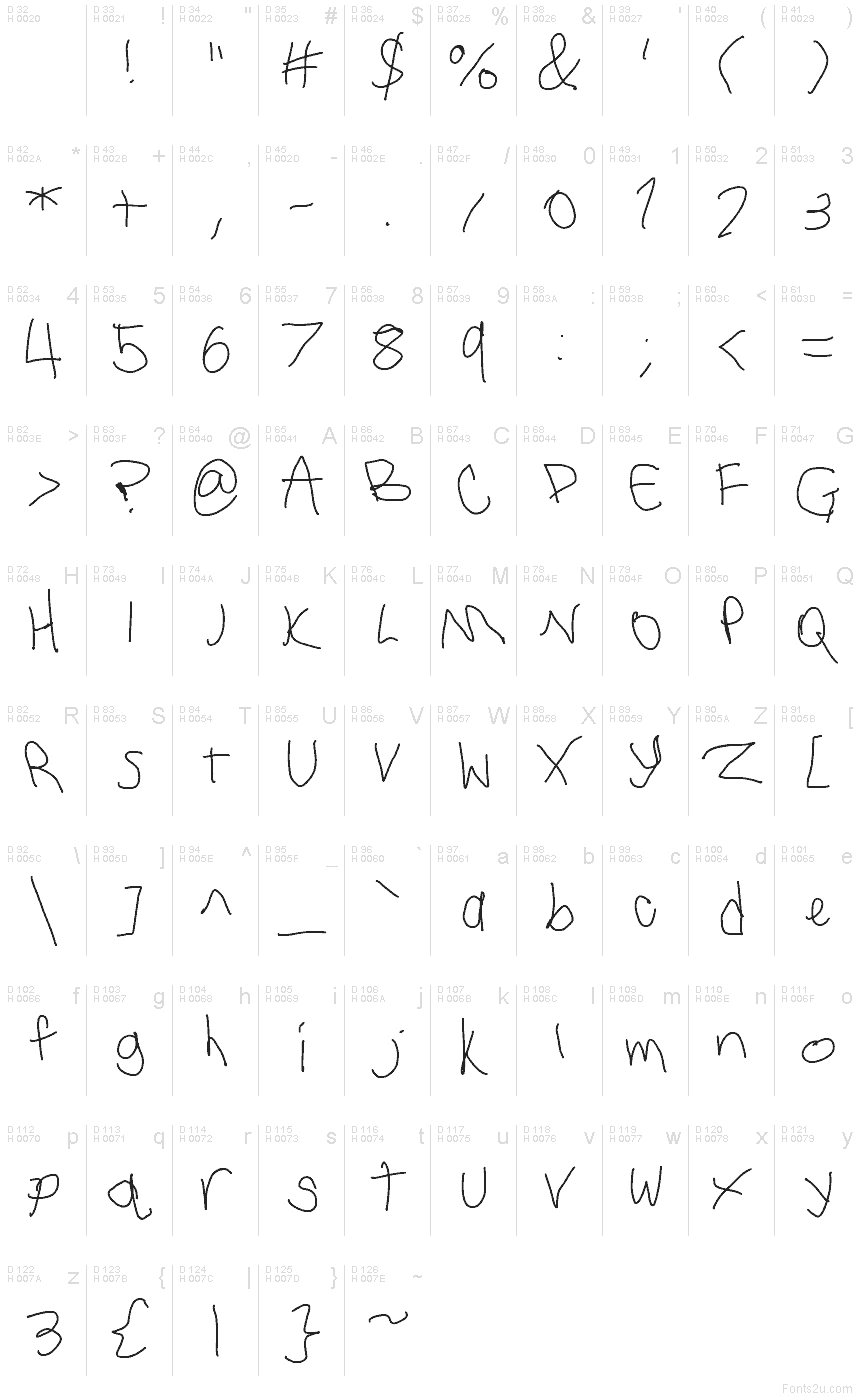
you idiot
You Idiot font by Heitor Zagnoli is a free handwritten typeface. It scrawls like a quick note on a crumpled napkin—thin, nervy strokes, wobbly spacing, and lanky letters that lean and wobble with attitude. The texture feels scratchy and unfiltered, giving your words a candid, slightly chaotic voice that looks ripped from the margins of a sketchbook.
This free font shines on zines, meme captions, anti-design posters, edgy stickers, protest graphics, horror-comedy titles, and indie album art. Using you idiot at larger sizes keeps the shaky rhythm readable; give it extra line space to breathe. For balance, pair it with a clean grotesque sans to anchor the noise.